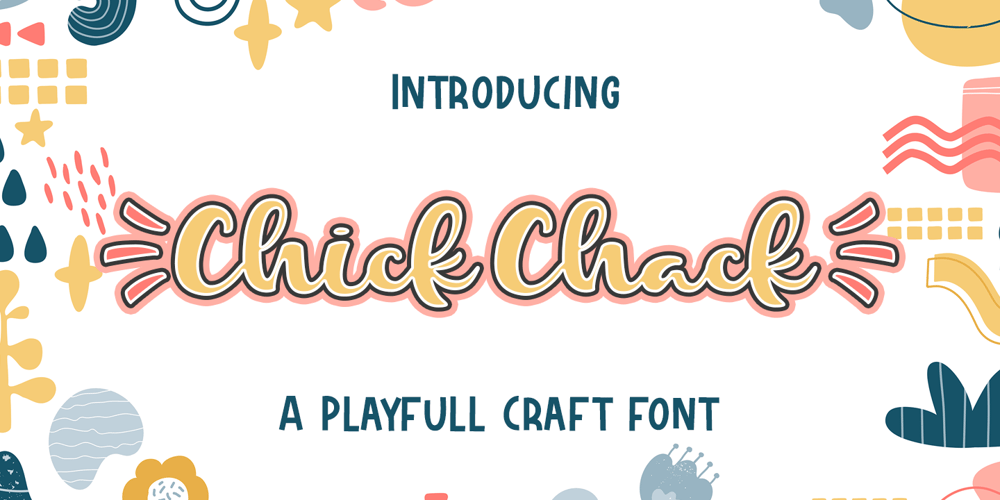
Chick Chack
Chick Chack font
Chick Chack Font Family was designed by Abdul Malik Wisnu and published by Almarkha Type. Chick Chack contains 1 styles and family package options. Chick Chack is a Playful Craft font that will make your designs look unique and fun.It’s perfect for labels, quotes, posters, DIY projects, branding, packaging, greeting cards, websites, photography overlays, signs, window art, scrapbooking, tags and so much more!